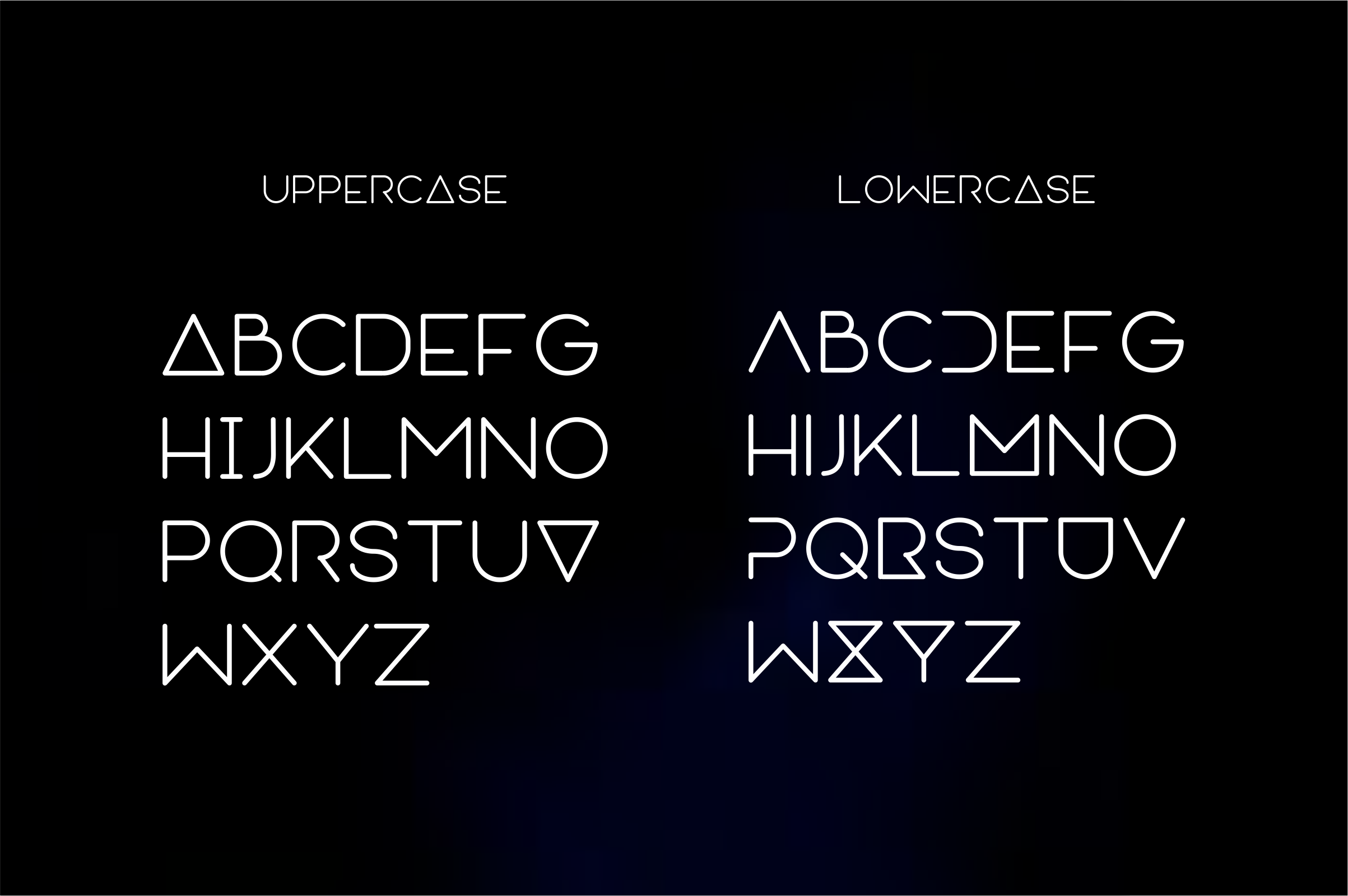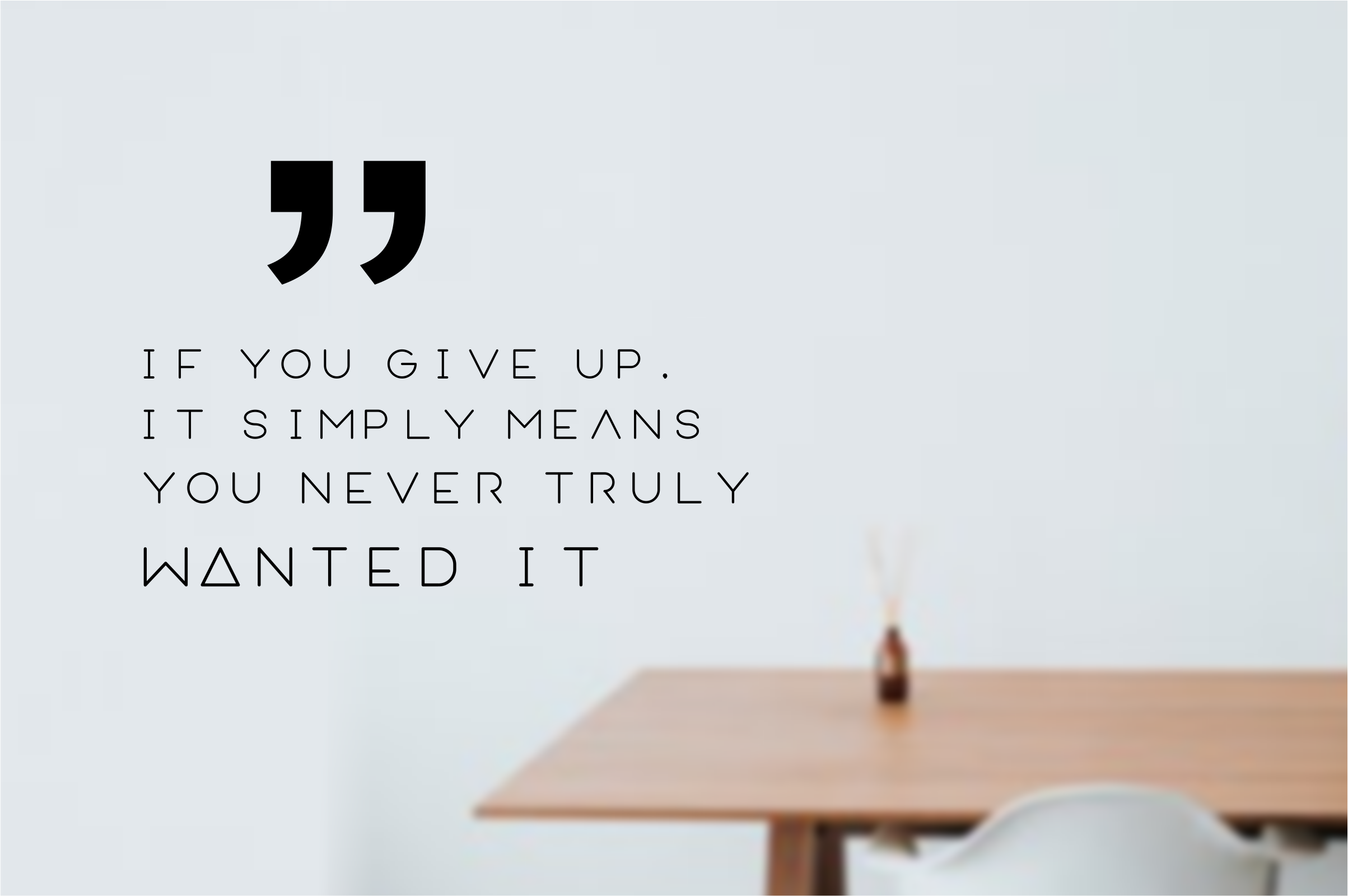
Balle Font: The Ultimate Sans Serif Display Font for Modern Designs
In the world of typography, a good font can make all the difference in creating a stunning design. For designers and crafters looking for a modern and minimal aesthetic, Balle Font is a game-changer. This jaw-droppingly stunning sans serif display font is designed with a priority on geometry and clean lines, making it ideal for extremely modern and minimal designs.
What is Balle Font?
Balle Font is a sans serif display font that boasts a unique and sleek design. Its geometric shape and clean lines give it a modern and sophisticated look that’s perfect for designs that require a touch of elegance. The font’s simplicity and minimalism make it versatile and easy to use, allowing designers to create a wide range of designs, from simple and clean to complex and bold.
Key Features of Balle Font
- Geometric Shape: Balle Font’s geometric shape gives it a modern and sleek look that’s perfect for designs that require a touch of sophistication.
- Clean Lines: The font’s clean lines make it easy to read and give it a crisp, modern look that’s perfect for designs that require a high level of legibility.
- Sans Serif: As a sans serif font, Balle Font is perfect for designs that require a clean and minimalist look.
- Display Font: Balle Font is designed as a display font, making it perfect for headlines, titles, and other large-format text.
Why Use Balle Font?
So, why should designers and crafters choose Balle Font for their designs? Here are just a few reasons:
- Modern Aesthetic: Balle Font’s modern and sleek design makes it perfect for designs that require a contemporary look.
- Versatility: The font’s simplicity and minimalism make it versatile and easy to use, allowing designers to create a wide range of designs.
- Legibility: Balle Font’s clean lines and geometric shape make it easy to read, even at large sizes.
- Uniqueness: Balle Font’s unique design sets it apart from other sans serif fonts, making it perfect for designers who want to create a distinctive look.
How to Use Balle Font
Using Balle Font is easy! Here are a few tips for incorporating it into your designs:
- Headlines and Titles: Balle Font is perfect for headlines and titles, where its bold and geometric shape can really make an impact.
- Logos and Branding: The font’s modern and sleek design makes it perfect for logos and branding, where a clean and sophisticated look is essential.
- Posters and Flyers: Balle Font is perfect for posters and flyers, where its bold and eye-catching design can really grab attention.
- Digital Designs: The font’s clean lines and geometric shape make it perfect for digital designs, such as website headers and social media graphics.
Tips for Pairing Balle Font with Other Fonts
Pairing Balle Font with other fonts can create a unique and interesting look. Here are a few tips for pairing Balle Font with other fonts:
- Contrast with Serif Fonts: Pairing Balle Font with serif fonts can create a interesting contrast between modern and traditional.
- Match with Similar Sans Serif Fonts: Pairing Balle Font with similar sans serif fonts can create a cohesive and harmonious look.
- Experiment with Script Fonts: Pairing Balle Font with script fonts can add a touch of elegance and sophistication to your designs.
In conclusion, Balle Font is a stunning sans serif display font that’s perfect for modern and minimal designs. Its geometric shape, clean lines, and bold design make it ideal for headlines, titles, logos, and other large-format text. With its versatility, legibility, and uniqueness, Balle Font is a must-have for designers and crafters looking to create a modern and sophisticated look.